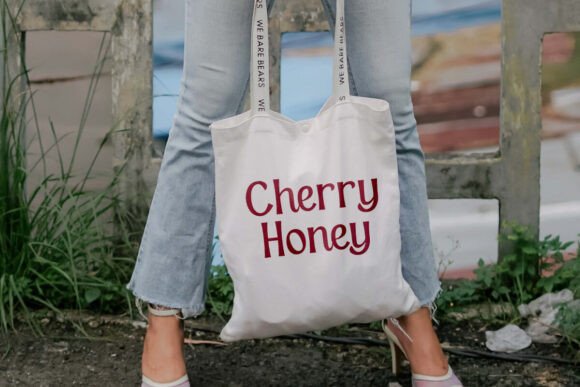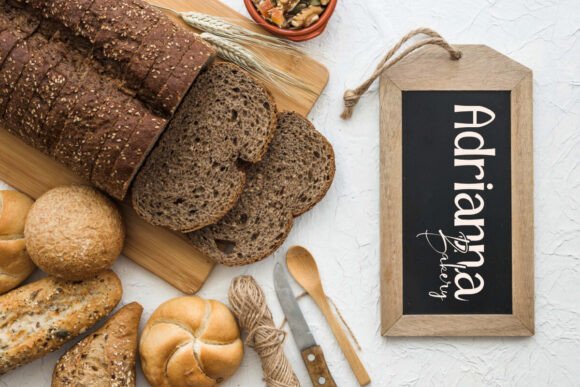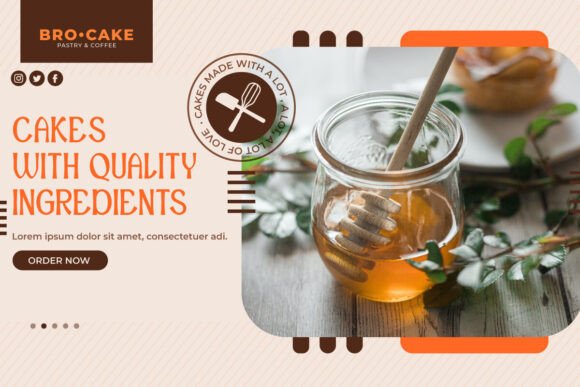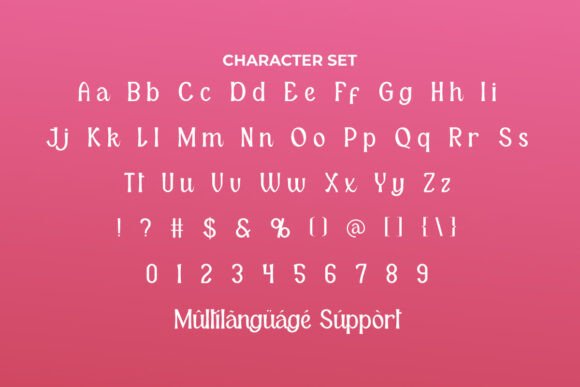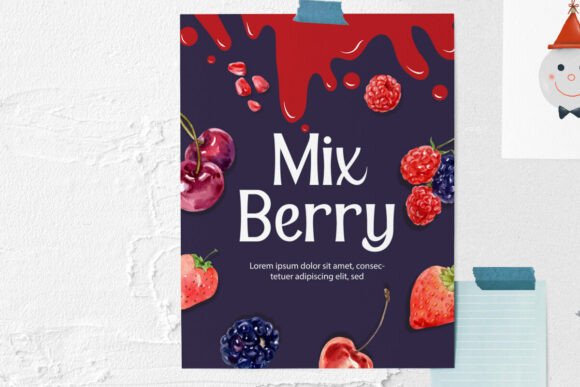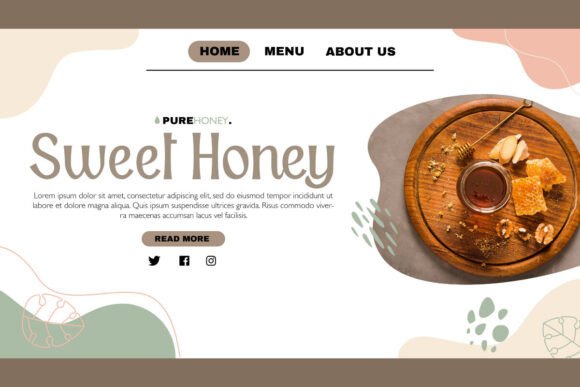
Introduction to Cherry Honey Font
Remember the moment when you’re stuck on a creative project, and you’re desperately searching for that perfect design element to tie everything together? It’s a feeling we’re all too familiar with, especially when working on high-end designs. But what if you stumbled upon a font that’s as sweet as a ripe cherry, yet bold and modern enough to elevate any design? Welcome to the world of Cherry Honey Font, a stylish sans display font that’s about to become your go-to design resource.
With its simple yet attractive design, Cherry Honey Font is perfect for filling those empty spaces in your design with a touch of elegance. Whether you’re working on an advertisement, a brand image, or even a business card, this font is sure to impress. And the best part? It’s available for free download, making it an accessible and valuable addition to any designer’s toolkit.
Key Features of Cherry Honey Font
- High-quality, elegant design ideal for creative projects and design resources
- Unique blend of modern and classic elements, perfect for a wide range of applications
- Transparent background allows for seamless integration with any design
- Includes 5 font styles, each with 3 weights (light, regular, bold) for added versatility
- Designed at a high resolution of 300 DPI for crisp, clear text
Honest Review: Cherry Honey Font
I recently stumbled upon the Cherry Honey Font while searching for a unique design resource for a creative project. Initially, I was drawn to its playful and whimsical style, which instantly grabbed my attention. The font’s high-quality design and transparent background make it perfect for any graphic design project.
Here’s what works well:
- ✨ Unique and playful design style
- ✨ High-quality design and transparent background
- ✨ Suitable for a wide range of creative projects
- ⚠️ Limited font sizes and styles available
- ⚠️ May not be suitable for professional or formal projects
Overall, I’m quite impressed with the Cherry Honey Font. It’s a great design resource for anyone looking to add a touch of whimsy to their creative project. While it may not be perfect, it’s a great option for those who want a high-quality, unique font without breaking the bank.
The Cherry Honey Font is ideal for a variety of creative projects, including social media graphics, flyers, posters, presentations, and documents. Its high-quality design and transparent background make it a versatile design resource for any project.